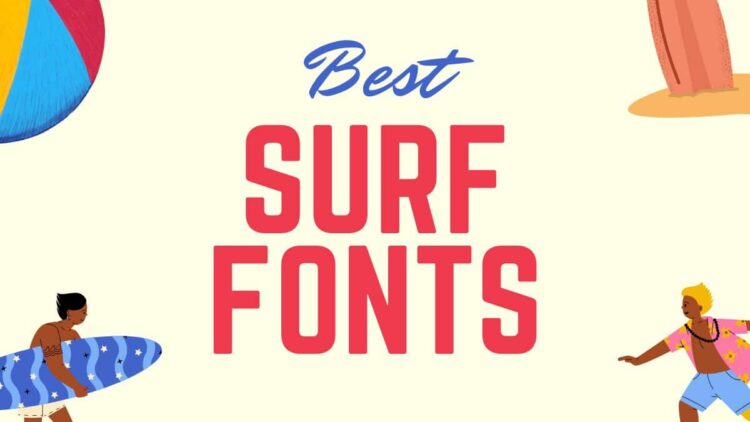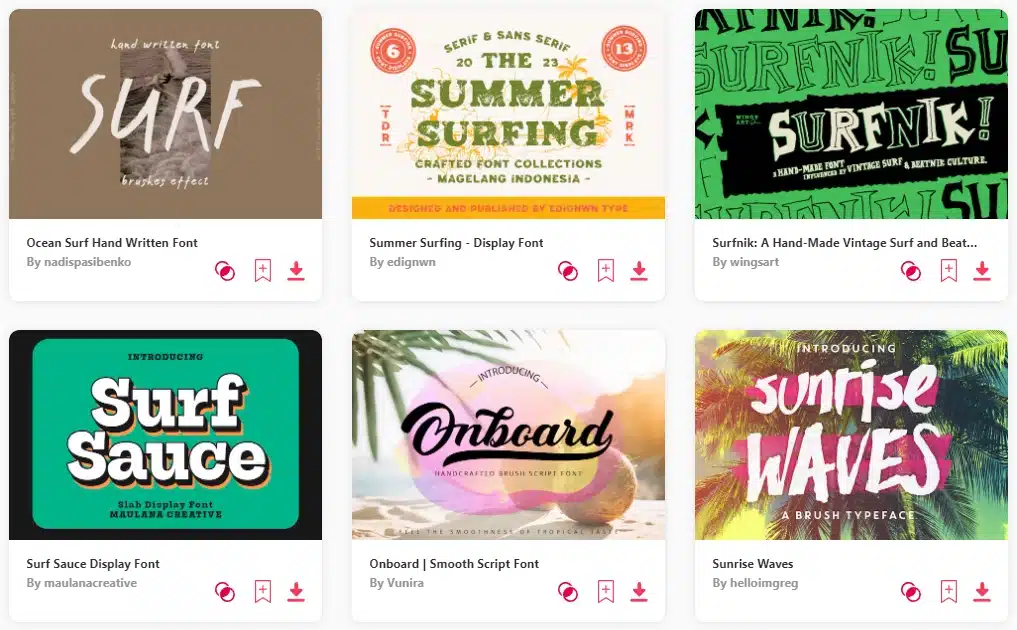
Just as waves leave an indelible mark on the shore, fonts make a lasting impression in the design landscape. The world of surf fonts brings forth a unique blend of energy, fluidity, and laid-back vibes, capturing the essence of the ocean’s spirit.
In the realm of design, fonts play a crucial role in conveying a brand’s identity. The surge in popularity of surf fonts is no exception. These fonts, reminiscent of sun-soaked beach days and the thrill of catching the perfect wave, are carving a niche in visual storytelling.
As brands seek to evoke a sense of adventure and free-spiritedness, surf fonts have become the go-to choice. They seamlessly blend the calligraphy of crashing waves with the boldness of surfboard graphics, creating a typography style that speaks volumes about the carefree coastal lifestyle.
In this comprehensive guide, we ride the crest of creativity, presenting the curated collection of the best surf fonts. Whether you’re designing a beach-themed logo, crafting surfwear branding, or adding a coastal touch to your projects, our list has the fonts that will help you ride the wave of design excellence.
Join us as we explore the fonts that embody the sun, sea, and surf culture, providing you with the tools to infuse your designs with the cool, casual vibe of the beach. Catch the design wave – it’s time to discover the best surf fonts for your creative journey.
What Defines the Best Surf Fonts?
Surf fonts, much like the waves they draw inspiration from, possess a distinctive allure for designers aiming to infuse coastal vibes into their projects. These fonts encapsulate the free-spirited energy of surf culture, blending fluid lines and beachy aesthetics. From classic beach fonts to modern, bold choices, the world of surf fonts offers a diverse range to cater to your creative vision.
Diving into the Variety of Surf Fonts
Whether you’re crafting a logo for a surf school, designing beachwear, or creating coastal-themed branding, the realm of surf fonts provides a myriad of options. Explore fonts that capture the essence of sun-soaked days, surfboards on sandy shores, and the laid-back lifestyle of coastal communities.
Why Opt for the Best Surf Fonts?
Choosing the best surf fonts for your design endeavors carries its own set of compelling reasons. These fonts, with their breezy and vibrant aesthetic, can instantly transport your audience to the carefree ambiance of beach life. The bold and dynamic appearance of surf fonts ensures that your design makes a splash, just like a surfer catching the perfect wave.
Moreover, surf fonts are versatile, catering to both classic and contemporary design preferences. Whether you seek a retro beach vibe or a modern, sleek look, there’s a surf font that aligns seamlessly with your creative vision.
Unlocking Design Potential with Surf Fonts
As these fonts ride the wave of popularity, a treasure trove of exemplary options and design inspirations awaits you online. Navigating through this collection makes the process of selecting the perfect surf font an enjoyable and straightforward experience.
So, if you’re on the lookout for fonts that bring the cool, casual vibe of the beach to your designs, dive into the world of surf fonts. Your creative journey is about to catch a wave of inspiration!
1. Stray Cuts – Decorative Surf Font
Stray Cuts is an electrifying brush font, capturing the untamed spirit of surf culture with its raw and expressive strokes. Perfect for dynamic projects like extreme sports events, posters, and streetwear branding, this font infuses an adventurous flair into every design.
Versatile and Expressive Design
Stray Cuts stands out with its freestyle lines, sharp cut shapes, and versatile application. From magazines and flyers to fashion and quotes, it adapts effortlessly. With inclusive features like alternate characters, ligatures, and multilingual support, Stray Cuts ensures your design journey is both vibrant and seamless. Elevate your creations with this dynamic font and explore more on our website for exciting offers and freebies.
2. Shorelines Typeface
Introducing Shorelines Typeface—a dynamic cursive font that dances like a surfer on the sea waves. It’s not your ordinary cursive; it’s a blend of a girl’s elegant handwriting and the bold shred of a boss. Whether you’re a photographer craving that signature touch on your images or a blogger seeking a natural, handwritten look, Shorelines Script has got you covered.
Key Features:
- Font Style: Solid, Clean Brush
- Versatility: Suitable for Summer-Style Designs
The Southeast font captivates with its clean and neat presentation, making it an ideal choice for various design ventures. Elevate your visual storytelling, whether it’s posters, labels, or other creative endeavors. Dive into the coastal charm of Southeast font and infuse your designs with the spirit of the surf.